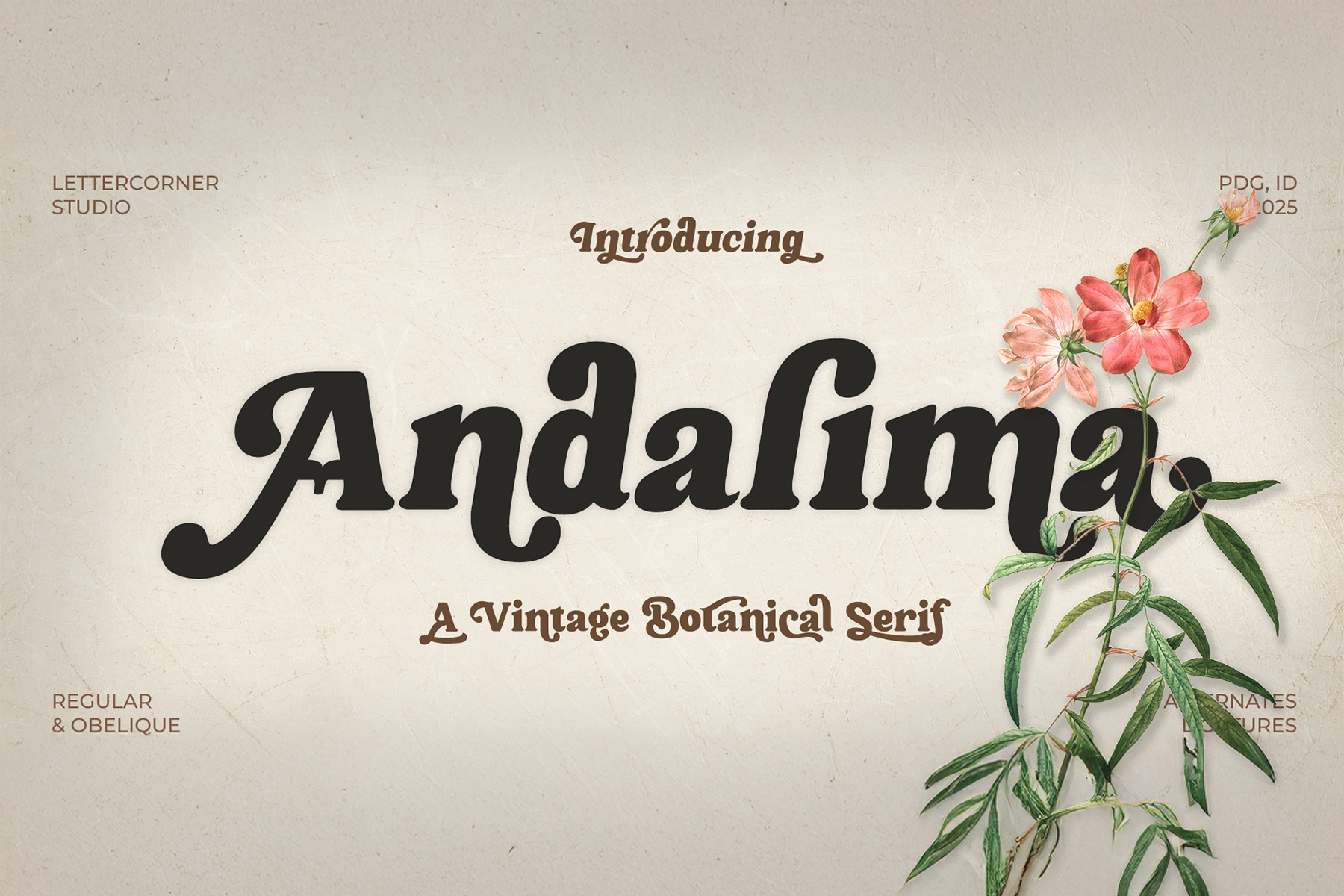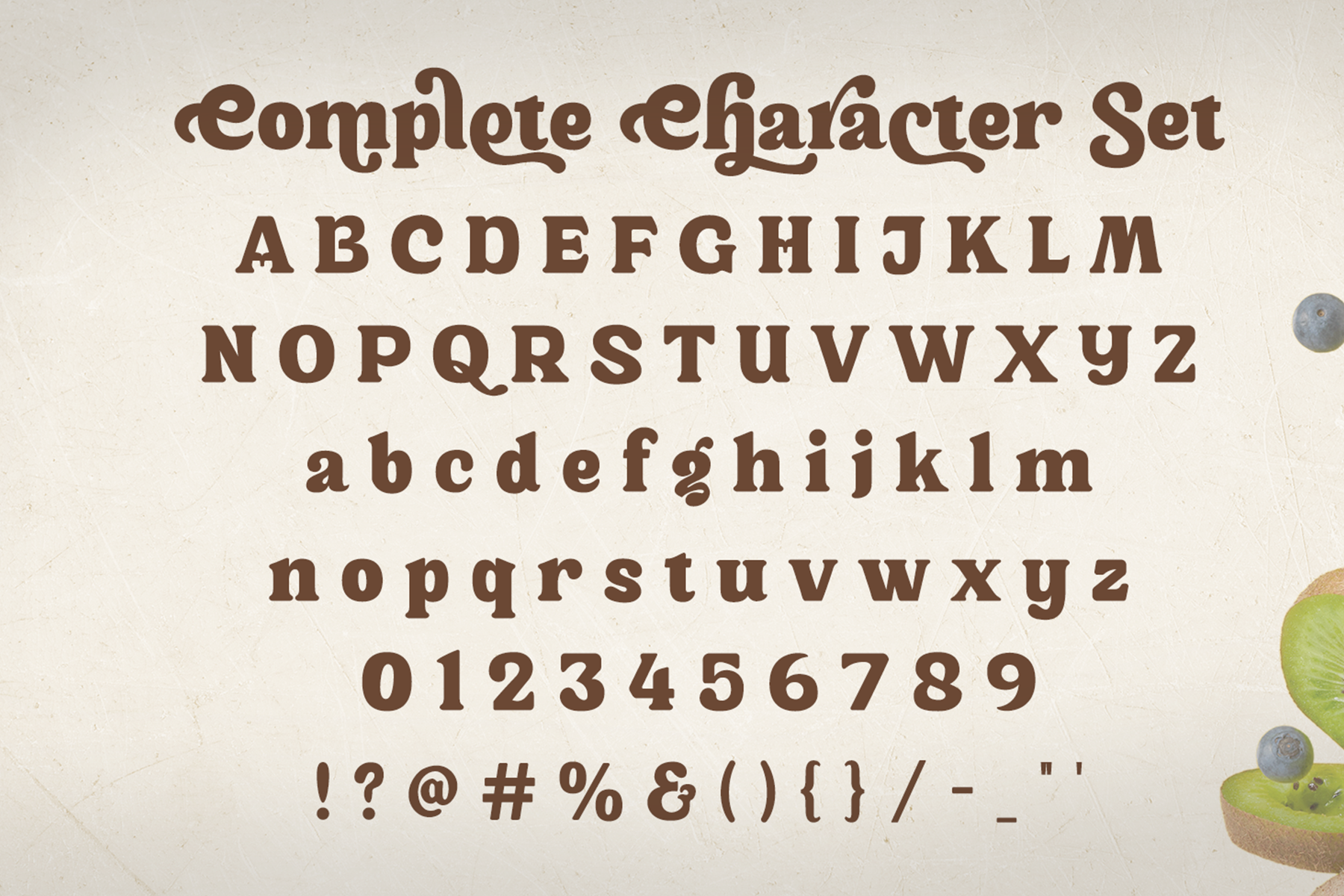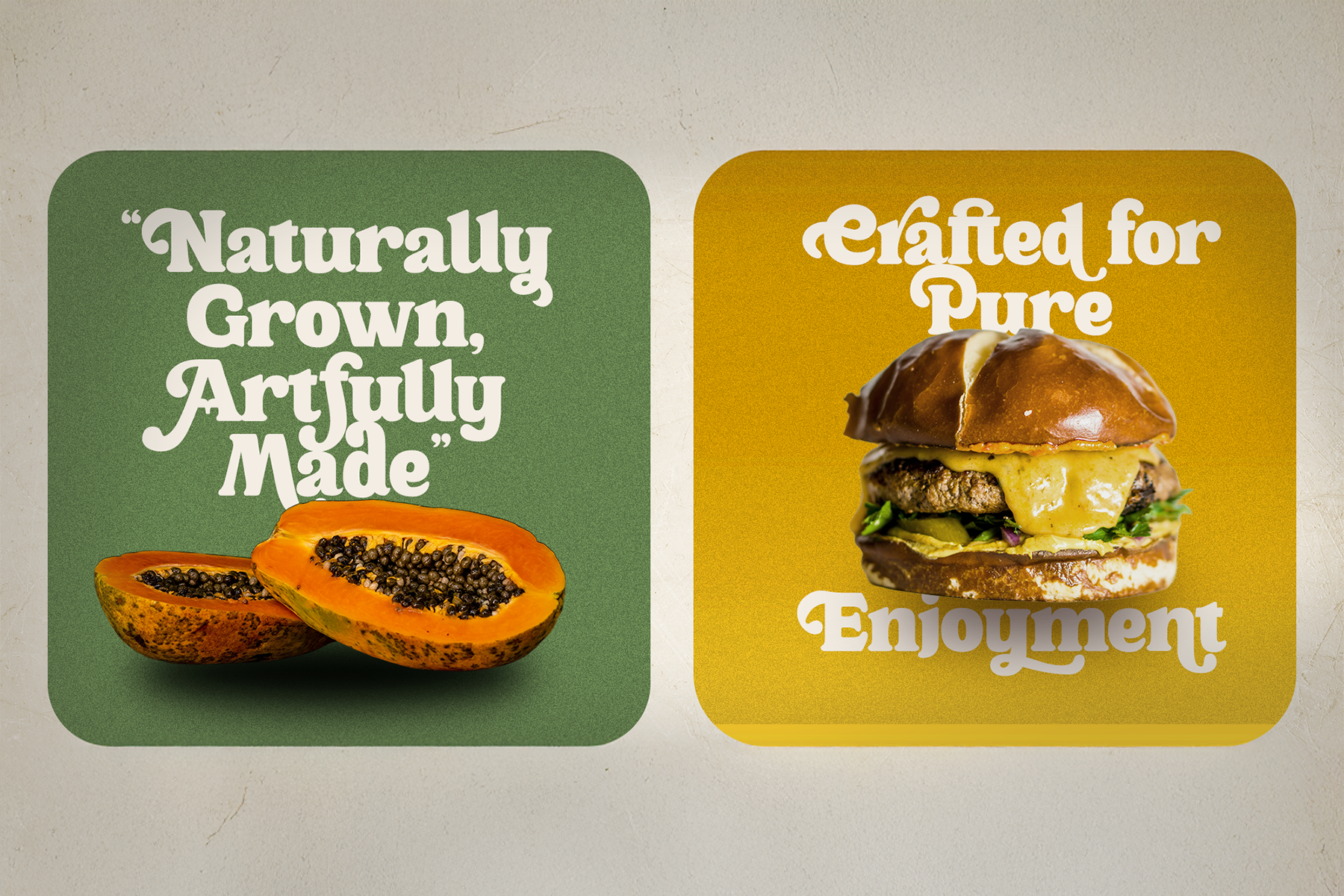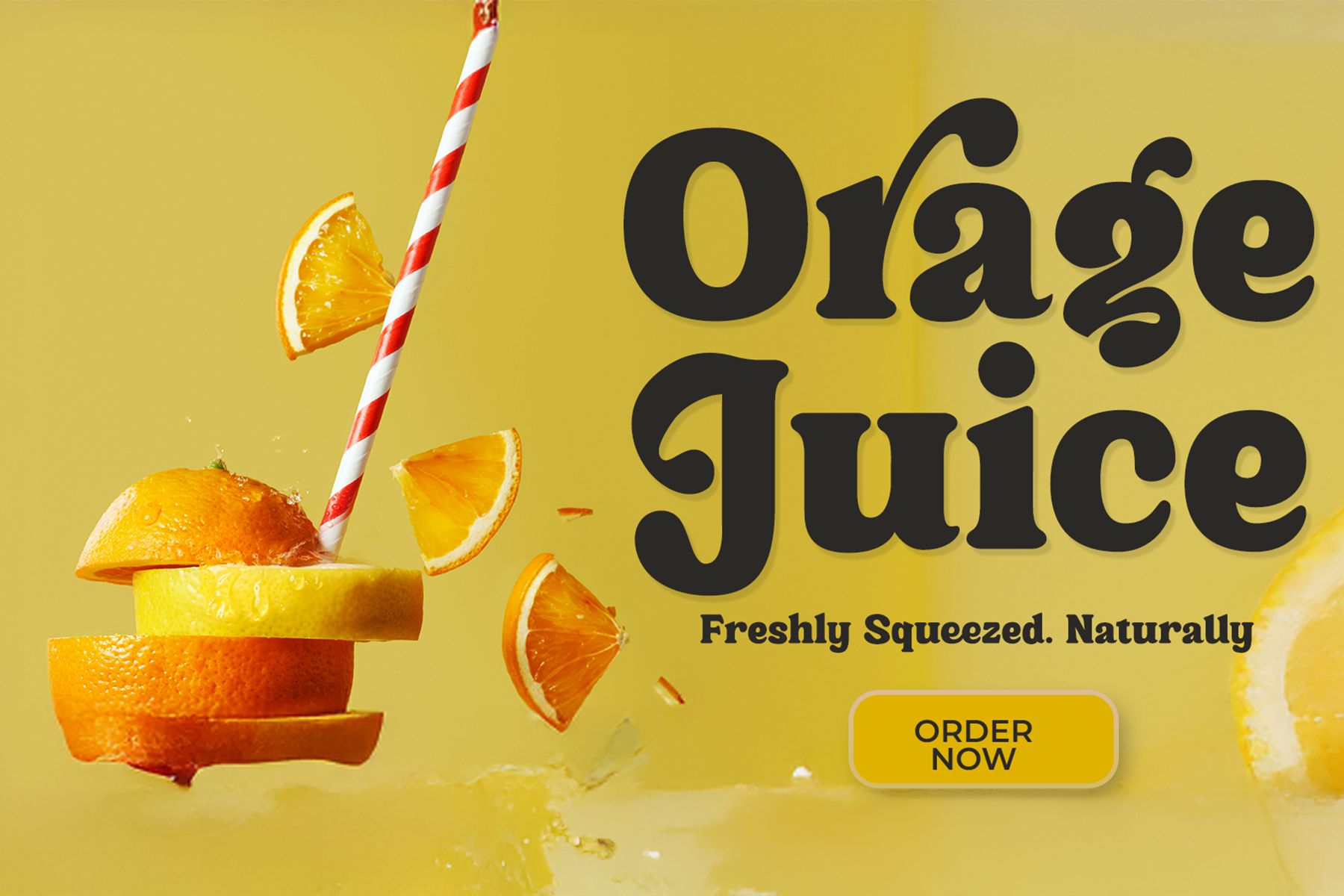
Andalima
Andalima by Lettercorner Studio is an elegant vintage serif inspired by classic botanical illustrations and timeless editorial typography. With its graceful curves, organic contrast, and subtly handcrafted details, Andalima brings a warm, nostalgic charm to any design it touches.
Designed to feel both refined and natural, Andalima balances decorative personality with excellent readability. Its gentle serifs and smooth flowing terminals give every letter a soft, artistic rhythm—perfect for brands that want to convey authenticity, craft, and beauty.
Whether used for packaging, editorials, logos, or display headlines, Andalima captures the essence of old-world print with a modern, curated aesthetic.
• Uppercase & lowercase
• Numbers & punctuation
• Alternates & unique ligatures
• Smooth organic curves inspired by botanical lettering
• Ideal for branding, packaging, editorial layouts, quotes, and vintage-inspired compositions